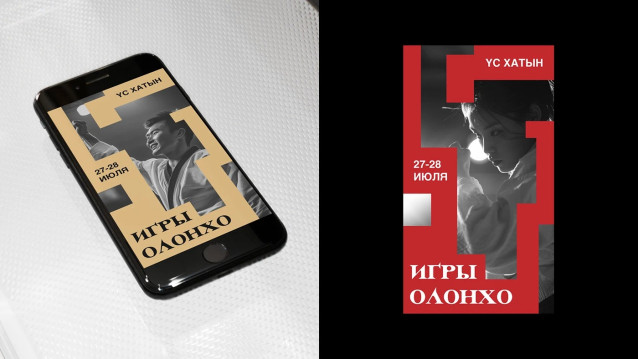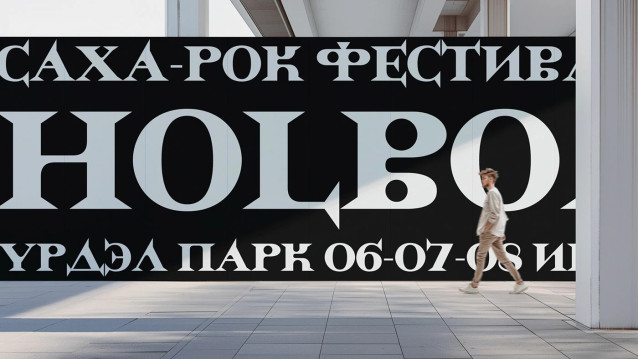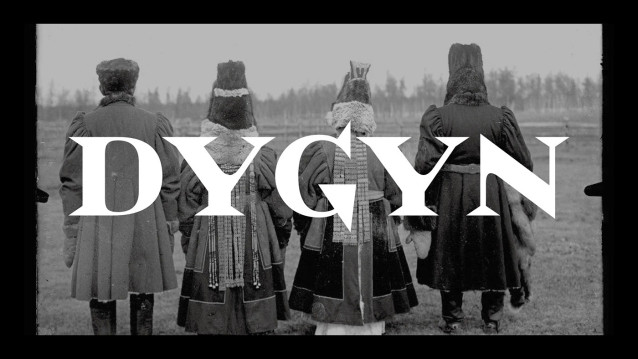
Dygyn Font is an accidental antique typeface with a northern soul, born from the ornaments of the Sakha people and passed down through centuries from mouth to pattern. Its forms draw inspiration from old Yakut books and the aesthetics of Boris Markevich, giving the font a voice rooted in the earth itself.
Its expressive graphics balance cultural authenticity with striking presence, making Dygyn highly relevant for headlines, posters, and impactful projects.
In Yakut mythology, dygyn means lightning-a symbol of power and speed that infuses the typeface with a unique energy. Supporting Cyrillic, Latin, numbers, and basic symbols across 120 languages, Dygyn carries both tradition and versatility.
Whether used in editorial design, cultural projects, or bold branding, Dygyn delivers an unmistakable visual force.
DYGYN FONT